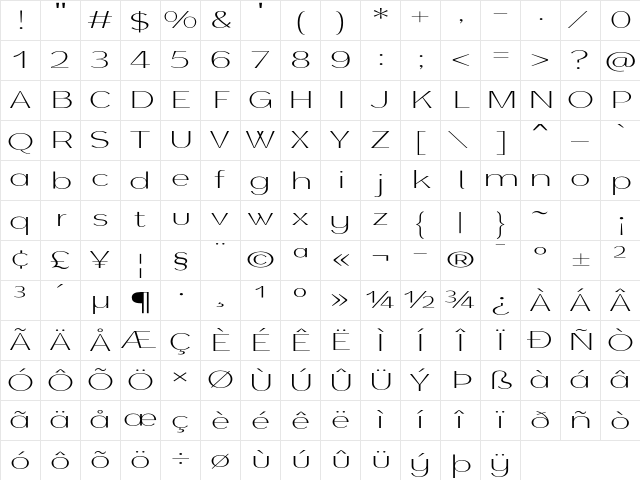
Complete TA Modern Times ExtLt UltExp Regular glyph index. Displaying only characters natively supported by TA Modern Times ExtLt UltExp Regular font.
TA Modern Times ExtLt UltExp is a composed and adaptable typeface that performs quietly and consistently across a wide range of design contexts.